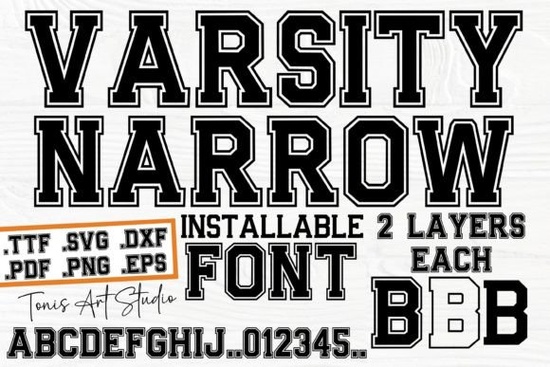
When designing custom team apparel or collegiate-style merchandise, finding the right lettering is crucial. The Varsity Narrow Font delivers exactly that classic athletic look with its sharp outline letters. It fits perfectly into the category of display fonts meant for bold statements, whether you are a print-on-demand seller creating custom hoodies or a hobbyist crafting a sports-themed birthday invitation.
What kind of projects work best with a varsity-style typeface?
This type of lettering is heavily associated with American high school and university athletics. Because of that built-in recognition, it works exceptionally well for projects that need to communicate team spirit, competition, or nostalgia.
- Custom Jerseys and Apparel: Print-on-demand sellers can use these sharp outlines to create personalized sports shirts. The narrow width allows you to fit longer names or words across the chest of a garment without the text looking cramped.
- Event Invitations: Crafting a draft day party invitation or a championship watch party flyer requires bold text. The strong geometry ensures your event details stand out from a distance.
- Home Decor: Woodworkers and crafters using CNC machines or vinyl cutters can create personalized family signs that mimic vintage stadium signage.
How do you mix collegiate lettering with other design styles?
Relying on a single display font can sometimes make a design feel flat. Pairing your main athletic text with contrasting typefaces helps establish a visual hierarchy.
If you need something slightly more illustrative for a team logo, you might explore designs that mimic traditional athletic lettering used by school mascots. This provides a bolder look for the primary graphic while the narrow text handles the subtitle.
For a rustic sports bar sign, blending collegiate styles with heavy western block shapes creates a unique, rugged aesthetic. Alternatively, give your merchandise an aged feel by pairing your graphics with classic retro typography for secondary information like dates or locations.
When designing for younger children, you might want to swap the sharp angles for playful rounded styles to keep the look friendly. Furthermore, adding a personal touch to a team banner is easy when you mix your main title with quirky hand-drawn scripts for player names.
If you are using a cutting machine like a Cricut or Silhouette, working with outline fonts is highly efficient. The sharp edges of this design mean your machine will cut clean, precise lines without catching on complex curves.
For heat transfer vinyl projects, the narrow structure wastes less material compared to extended block fonts. This is an important cost-saving factor for small businesses producing bulk team orders. Just ensure you mirror your design before cutting if you are applying the text to the inside of a shirt.
- Check the spacing: Outline fonts sometimes need slight kerning adjustments to look balanced, especially with letters like "A" and "V".
- Contrast your colors: Ensure the inner fill color contrasts highly with the outer stroke for maximum readability on different shirt colors.
- Test the scale: Print your design on standard paper at actual size before cutting specialty vinyl to verify the width fits your specific garment properly.